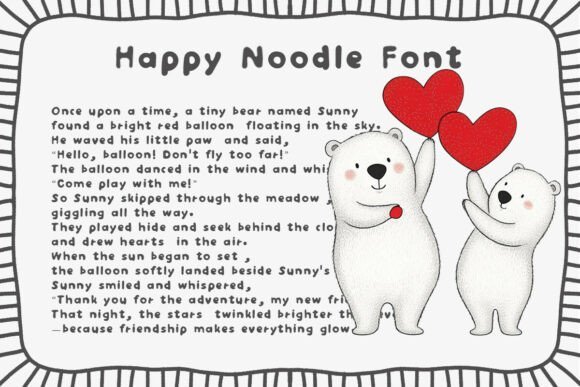
Discover the Joy of Handwritten Typography
As a designer, have you ever been in a creative zone, brainstorming ideas for a children’s project or holiday design, only to be stuck on the perfect font? The search is over, thanks to the adorable Happy Noodle Font. This charming, handwritten typeface is specifically designed to evoke a sense of warmth and friendliness, making it perfect for kids’ projects, teachers, and fun holiday designs.
The Happy Noodle Font is a game-changer for designers looking to add a personal touch to their work. With its rounded letters and cheerful strokes, every word looks inviting and full of joy. Whether you’re creating classroom worksheets, kids’ journals, labels, cards, or storybooks, this font is sure to add a special something to your designs. And with its multilingual support and OTF formats, you can use it on any software, from Cricut to Illustrator.
Key Features of Happy Noodle Font
- Unique Characteristics: Happy Noodle Font features a playful, handwritten style with a mix of rounded and pointed letterforms, giving it a friendly and approachable feel.
- Font Family: The font family includes multiple weights, from Light to Bold, allowing users to choose the perfect style for their design needs.
- Language Support: Happy Noodle Font supports a wide range of languages, including English, Spanish, French, German, Italian, and many more.
- Scalability: The font is designed to be highly scalable, making it suitable for use in a variety of applications, from small text to large headlines.
Happy Noodle Font Review
Overall, I think the Happy Noodle Font has some great qualities that make it a fun addition to any design project. ✨ The font’s playful, handwritten feel is perfect for creating a lighthearted and approachable atmosphere, and it’s great for use in social media graphics, signage, or even children’s books. The font is also highly customizable, with a wide range of options for adjusting the size, color, and spacing of the text.
One of the things I appreciate about the Happy Noodle Font is its versatility. ✨ It can be used for both digital and print projects, and it’s suitable for a variety of industries, from food and drink to fashion and entertainment. Additionally, the font is highly legible, making it easy to read even at small sizes.
While the Happy Noodle Font has many great qualities, there are a few limitations to consider. ⚠️ One of the main drawbacks is that the font can be quite busy, with a lot of details and flourishes that may be overwhelming in some designs. Additionally, the font may not be suitable for use in formal or professional settings, as it can come across as too casual or playful.
In conclusion, I think the Happy Noodle Font is a great choice for designers who want to add a touch of whimsy and personality to their projects. While it may not be suitable for every design, it’s a versatile and highly customizable font that can be used in a wide range of contexts.
- Playful, handwritten feel
- Legible at small sizes
- Suitable for digital and print projects
- Versatile for various industries
The Happy Noodle Font is perfect for creating playful, whimsical designs. Use it for:
- Summer-themed posters and graphics.